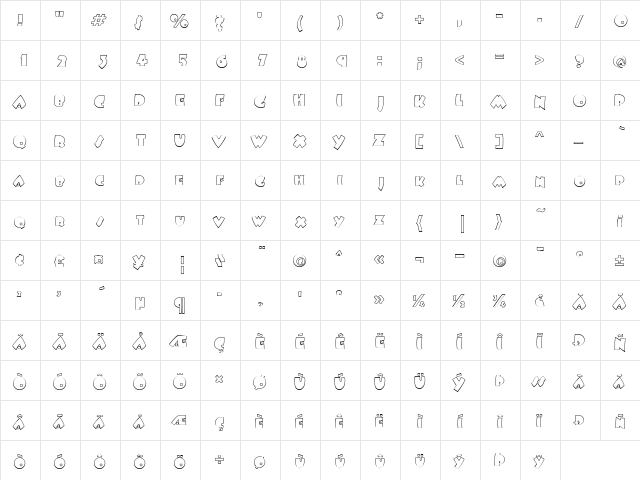
FatsoOutline Heavy
Design Context for FatsoOutline Typeface
FatsoOutline brings ornamental detail and strong personality to headlines and identities, where visual impact matters more than quiet functionality.
Font Pairing: Pair with a clean neutral sans-serif for body copy to let FatsoOutline's character lead without overwhelming the composition.
Pro Tip: Use FatsoOutline exclusively at display sizes — it was designed to be seen, not read at length. Let a neutral companion handle body copy.